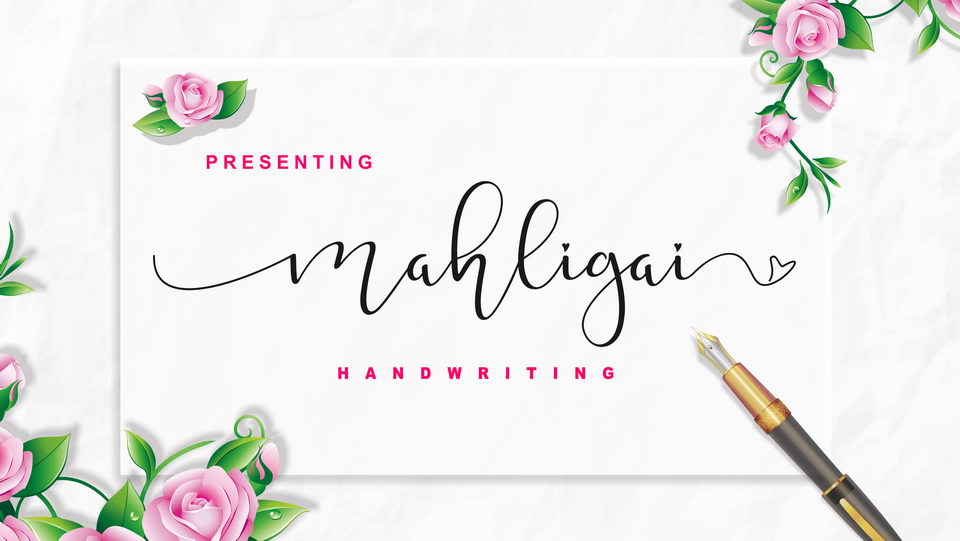
Feb 14, 2025Script & HandwrittenMahligai Script Mahligai a beautiful modern calligraphy handwritten font with an irregular baseline and a elegant look. Mahligai is created to fulfill all designing needs. Font DetailsDesigned by: Malindo CreativeWebsiteLicense: Free for personal use Download Mahligai ScriptFile size: 30.26 KBCreated: February 16, 2025Updated: February 16, 2025 Download Explore similar fonts Tender Natural Font Ulya Rahmatun Font Maulieda Remighe Font Daylight Beauty Font Honey Bear Font Santa Catalina Font # Bouncy# Calligraphy# Cursive# Elegant# Feminine# Handwriting# Wedding More fonts by Malindo CreativeAnchou ScriptOlder Historica ScriptHadsut FontAisyah ScriptHandy ScriptLove Amsterdam FontModena Script × Analyzing and categorizing font glyphs... Please wait.